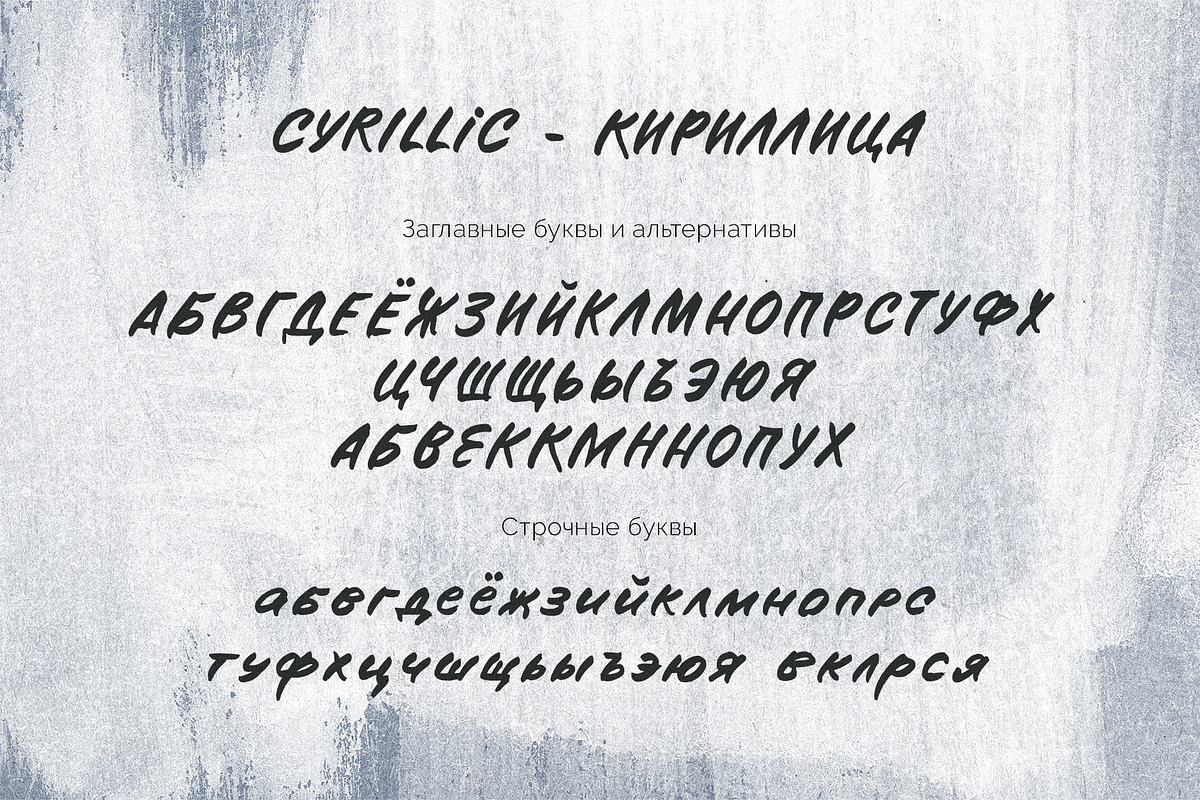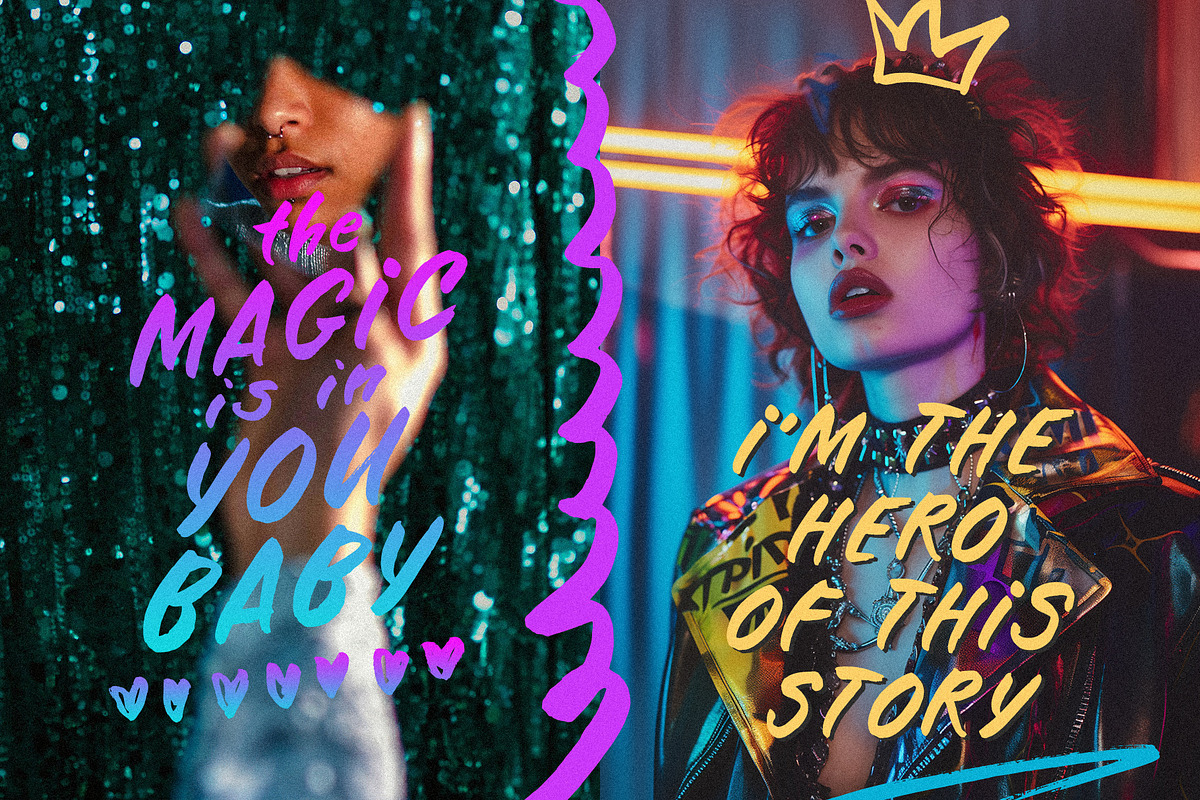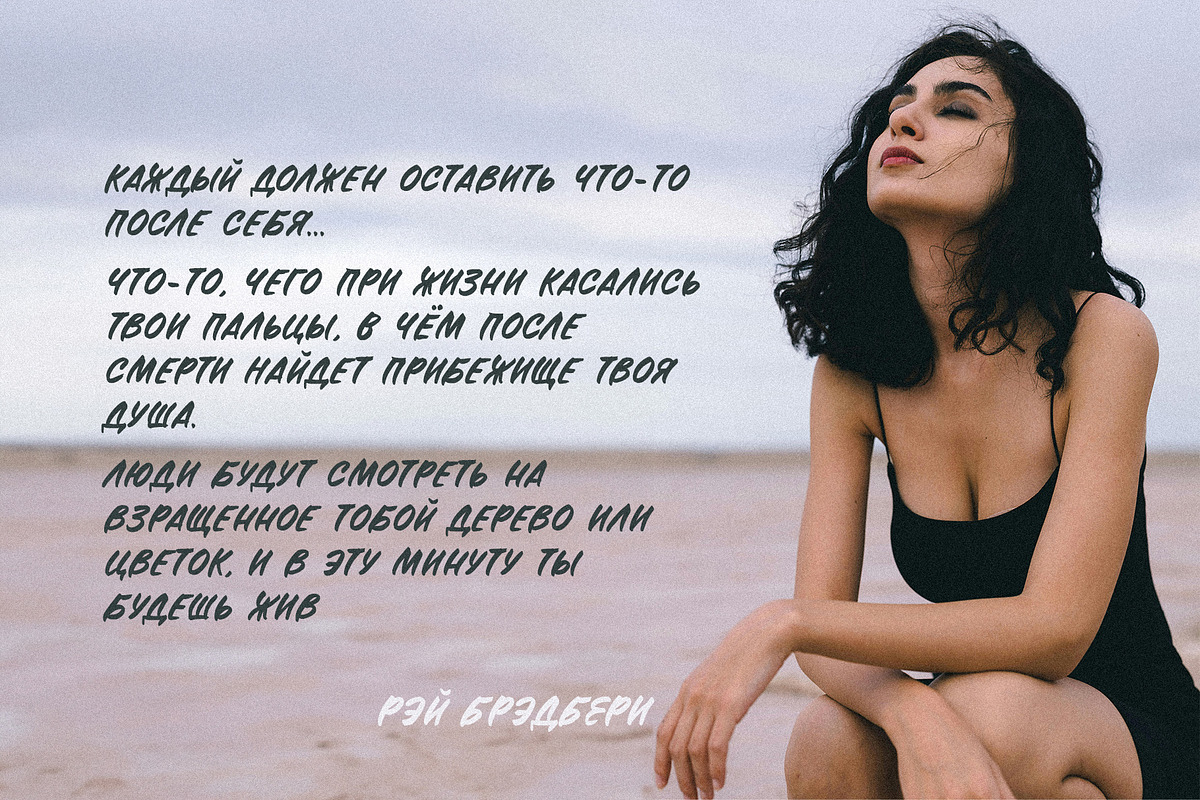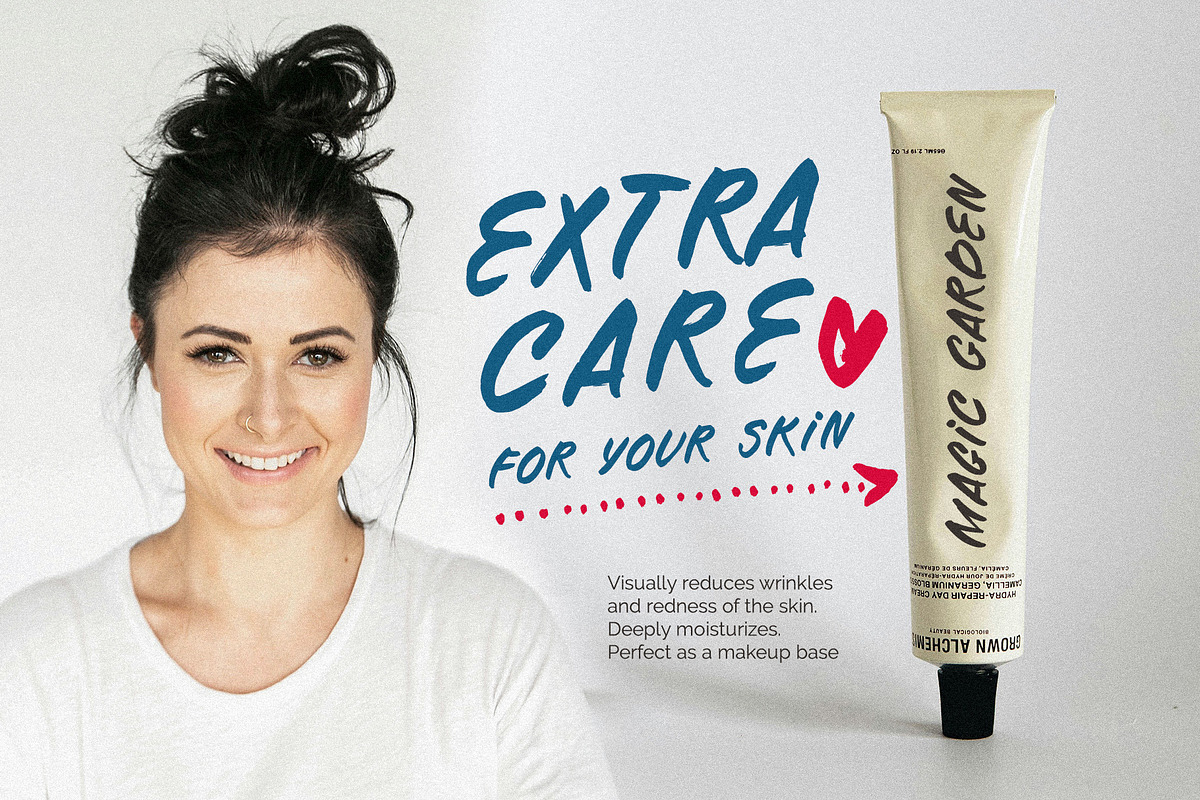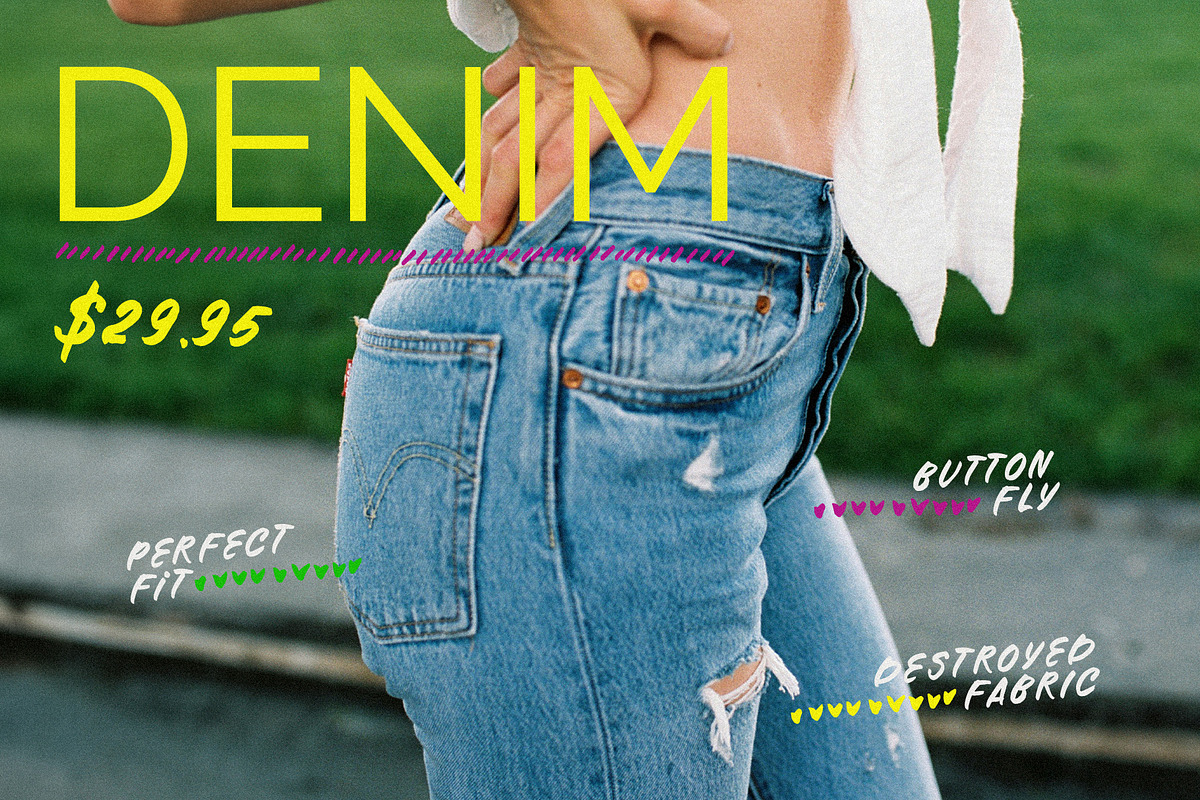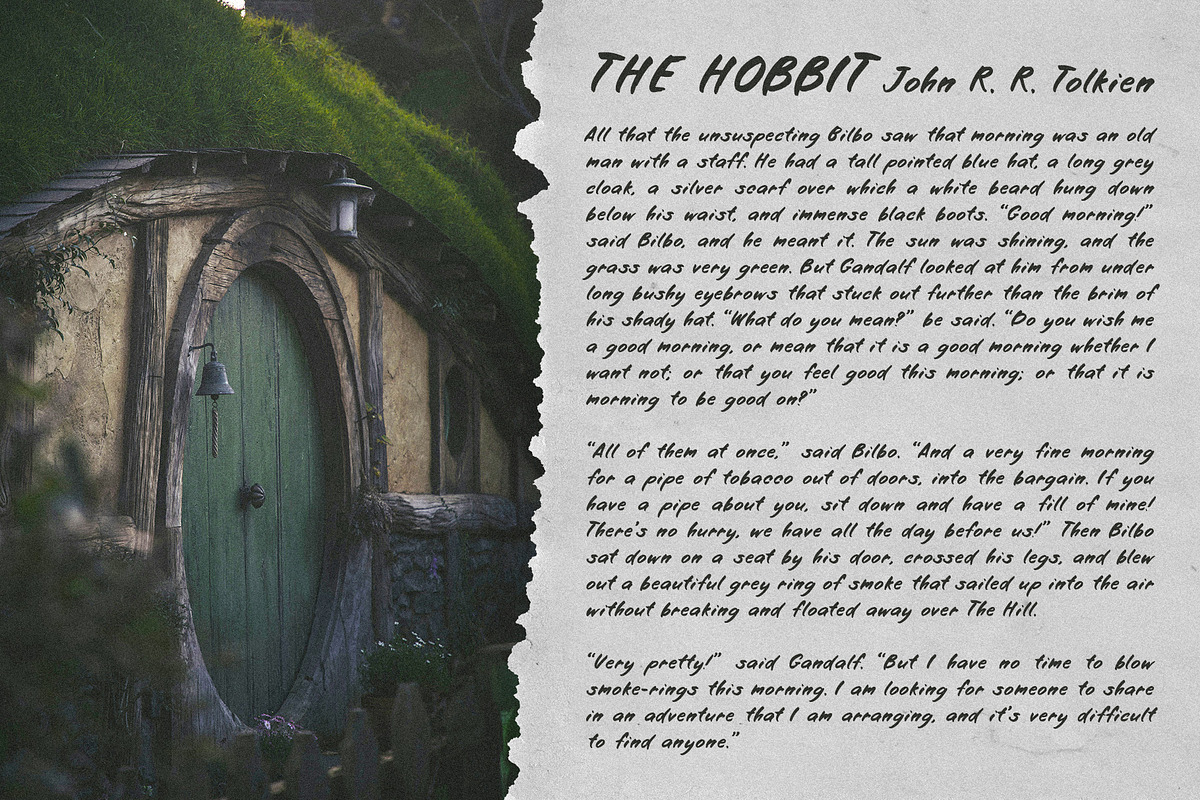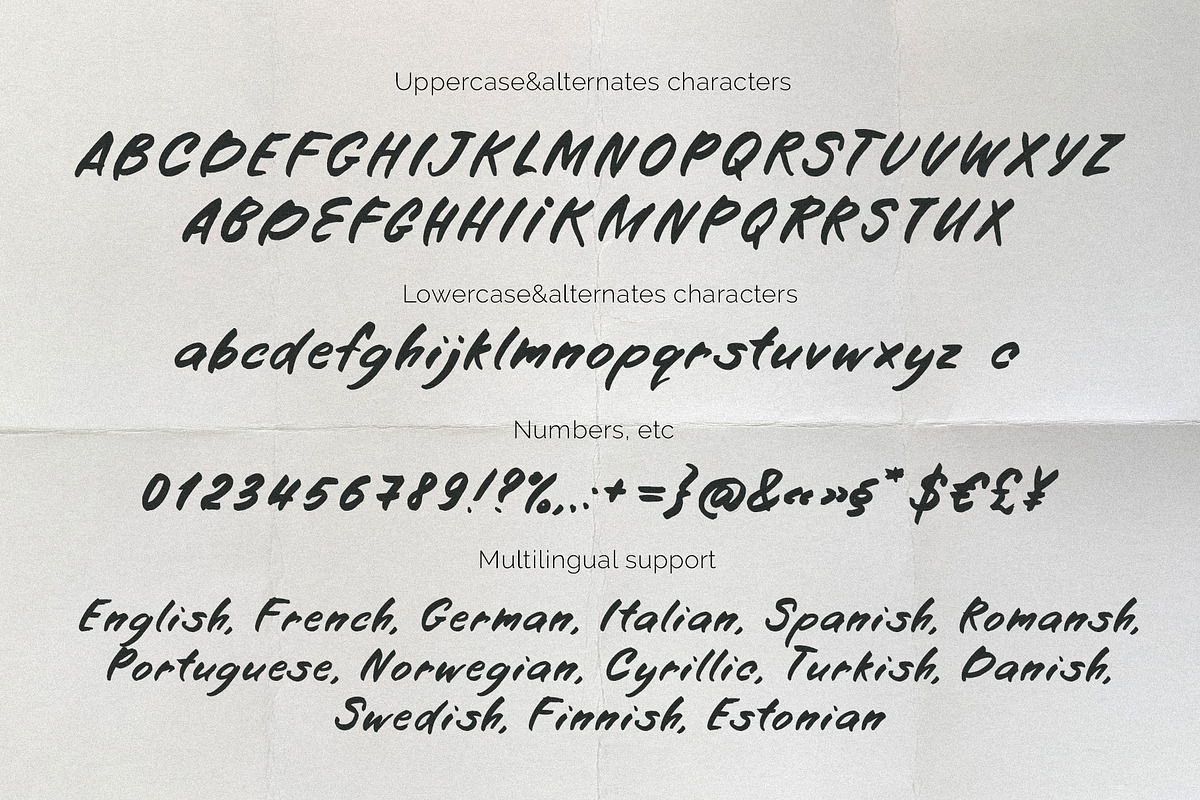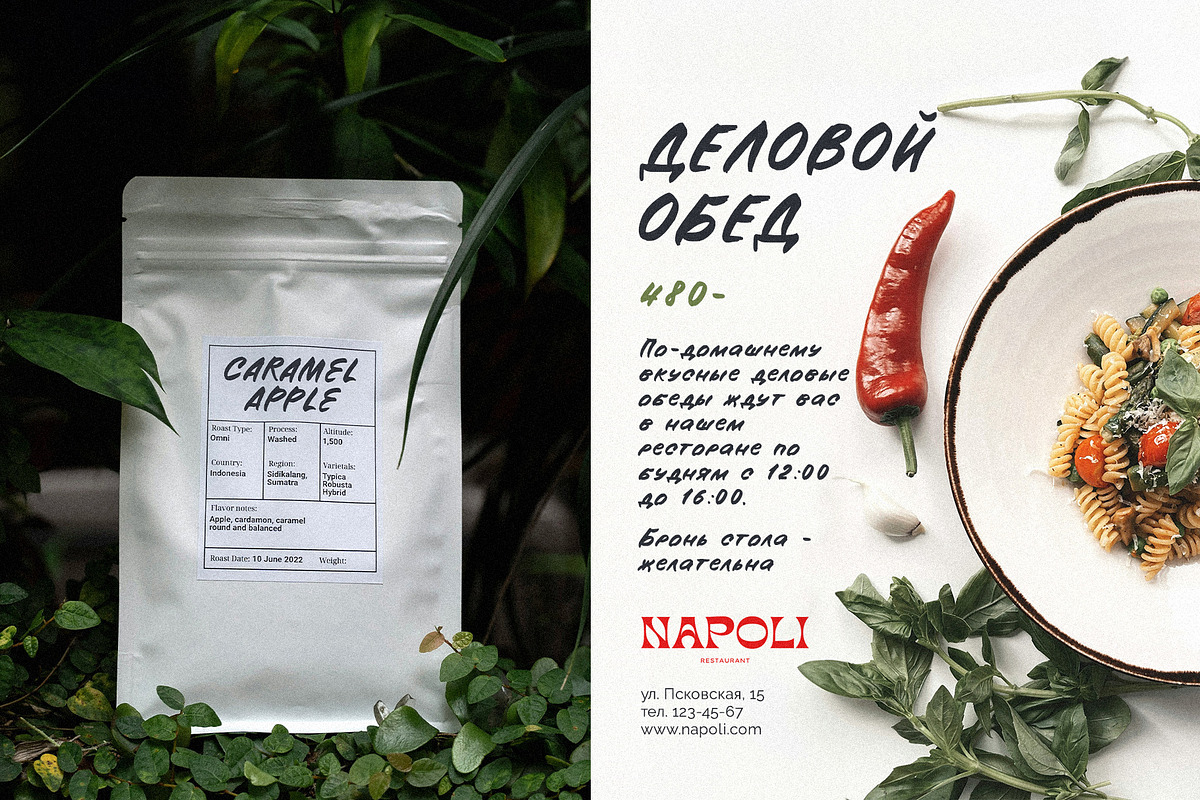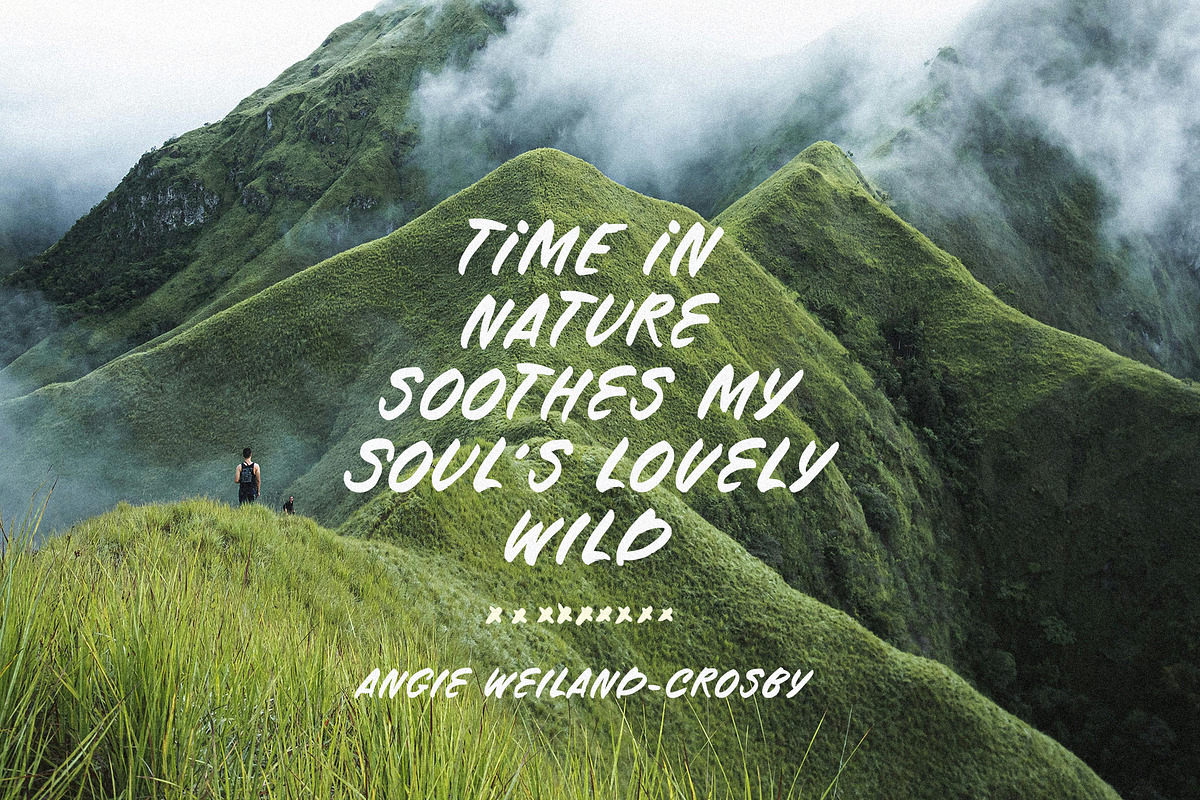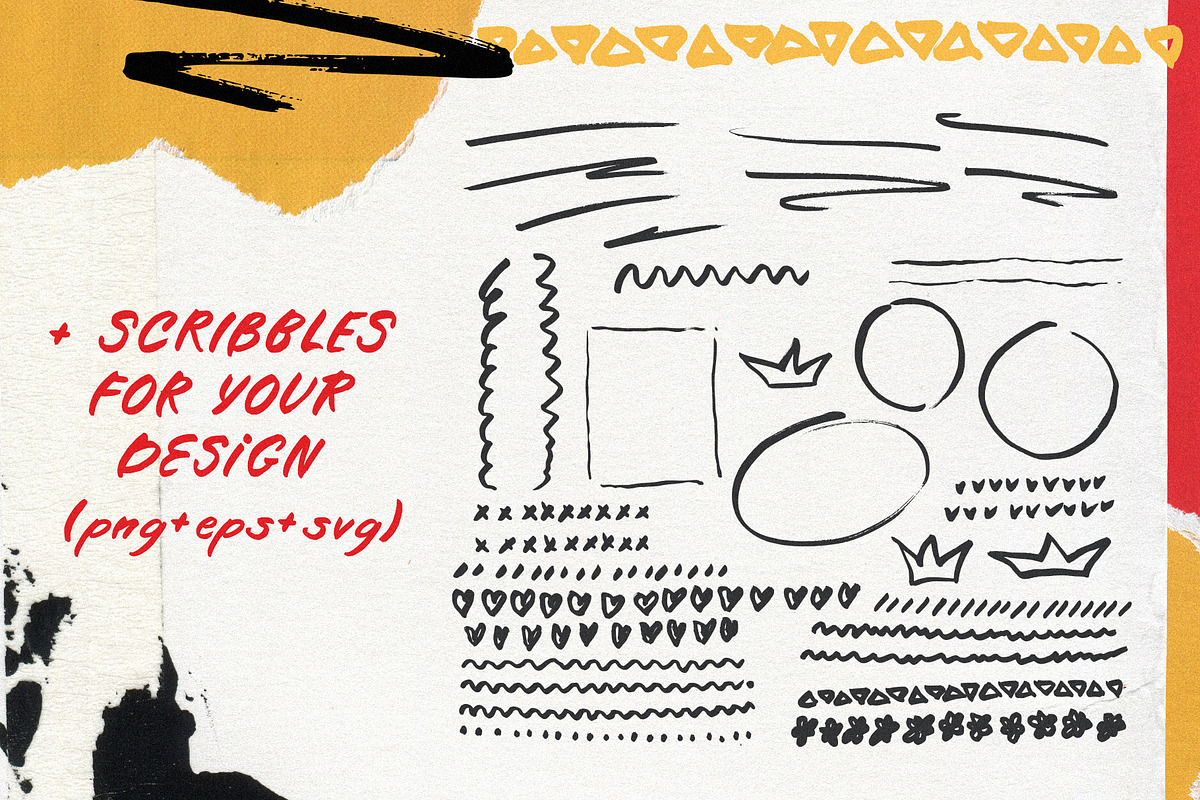
Marker font real Create your mark
Create Your Mark is a unique handwritten marker font that captures the energy and texture of real marker strokes. The marker font has a grunge texture, contains uppercase and lowercase letters, alternates. Supports many languages, including Cyrillic.
Whether you're designing eye-catching headlines, logos, posters, website design or social media graphics, this font will help you stand out from the crowd. It's perfect for design for various things, including website texts, packaging, advertising, product design, websites, blogs and much more
Create Your Mark is perfect for adding a personal touch to your projects and expressing yourself with confidence and creativity.
The font is suitable for design for various things, including logo design, packaging, advertising, product design, websites, blogs and much more.
Create Your Mark has extensive language support, it includes English, French, German, Italian, Spanish, Portuguese, Danish, Norwegian, Swedish, Finnish, Estonian, Romansh, Turkish, Cyrillic. Need to know if your language is supported? Type any words in the text box below and see if all characters you need are there.